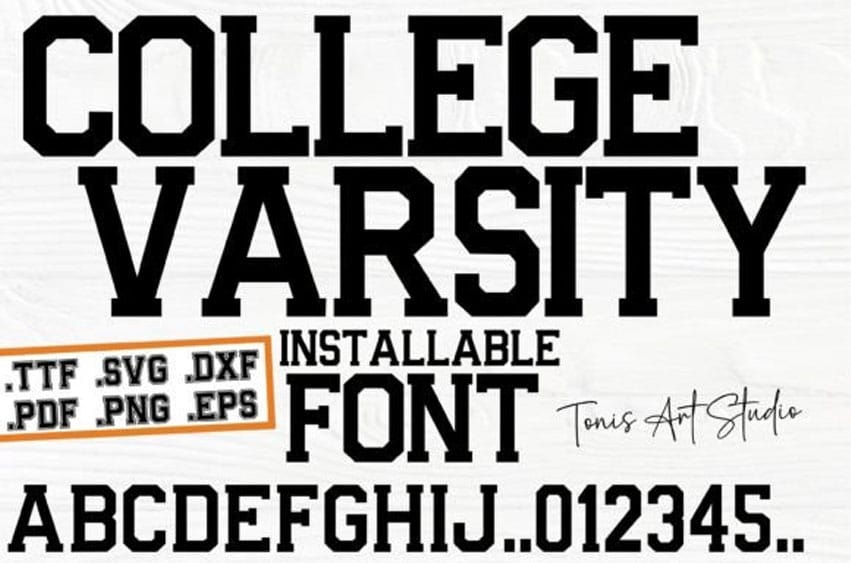
College Varsity Font Svg, perfect for all your crafting needs! This set includes stylish college font letters that will add a sporty and chic touch to your projects.